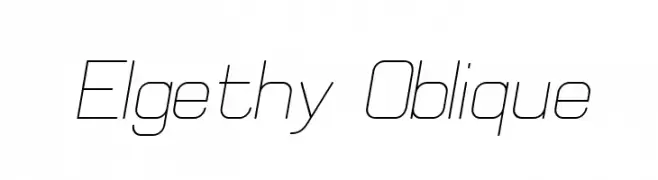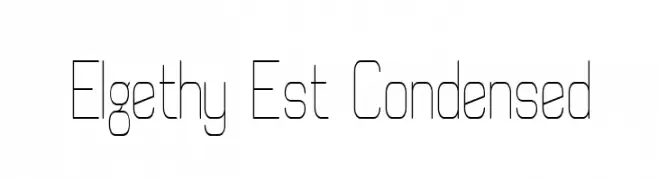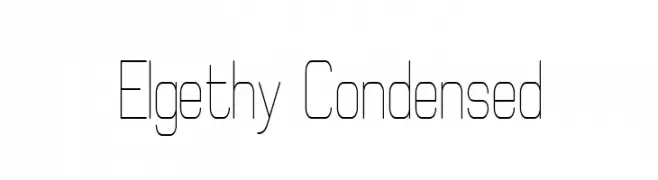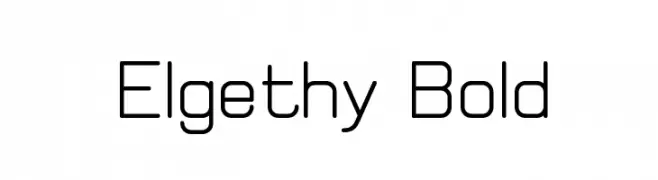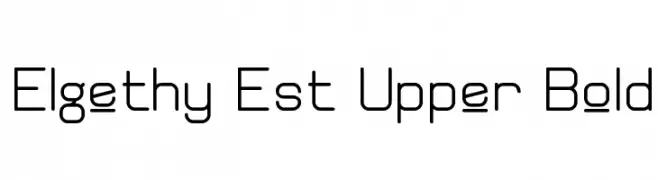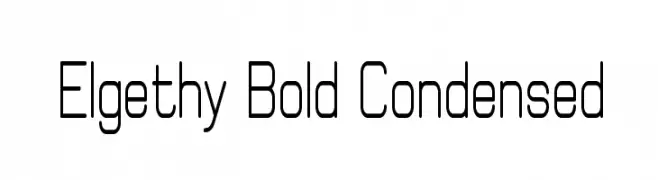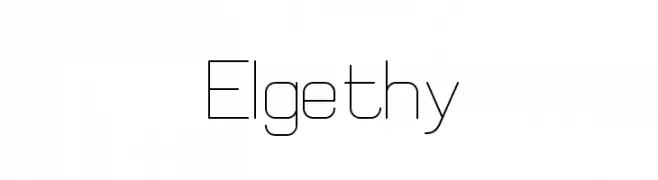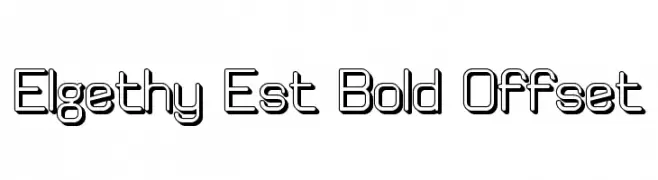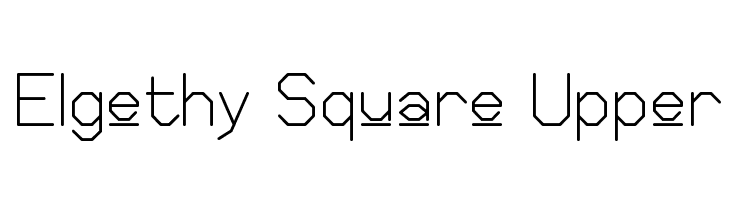
A sleek, oblique font with a modern, minimalist aesthetic.
A modern, geometric font with clean lines and rounded edges.
A modern, geometric, and condensed font with thin lines and a minimalist style.
A modern, geometric, and condensed font with thin, uniform lines.
A modern, geometric sans-serif font with clean lines and uniform stroke width.
A modern, geometric font with clean lines and rounded edges.
A geometric, angular font with a modern and technical appearance.
A bold, condensed font with geometric lines and uniform stroke width.
A sleek, modern font with thin, geometric lines and a minimalist style.
A bold, offset font with a modern, double-line design.